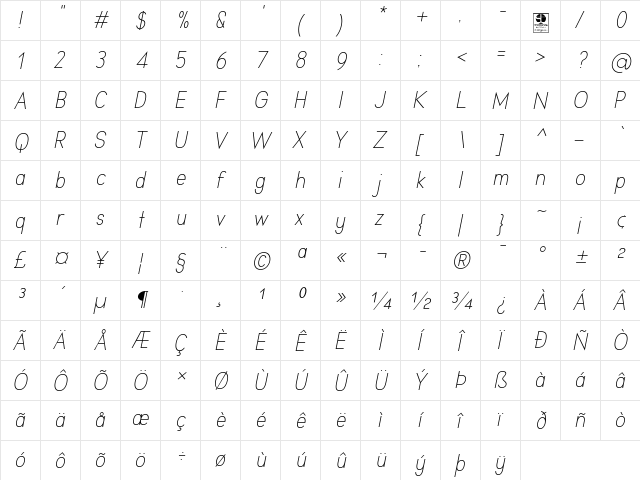
Aprikas Light Italic Demo Regular
| Foundry | StudioTypo |
| Designer | MEHMET ABACI |
Design Context for Aprikas Light Italic Demo Typeface
Aprikas Light Italic Demo offers clean, dependable letterforms without strong stylistic allegiance, making it a practical choice for designers who need flexibility. The slanted form adds forward momentum and visual energy. Its slender proportions lend an understated elegance to any composition.
Pro Tip: Use Aprikas Light Italic Demo for emphasis, pull quotes, and subheadings where its slanted energy can add rhythm to the layout.